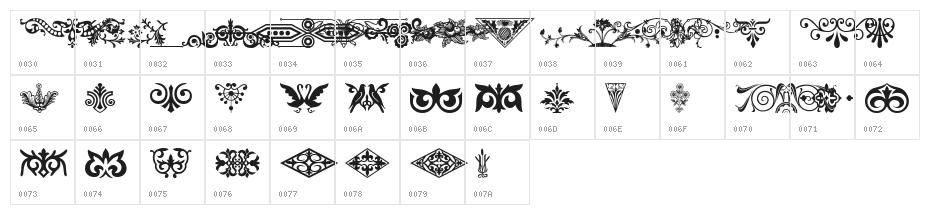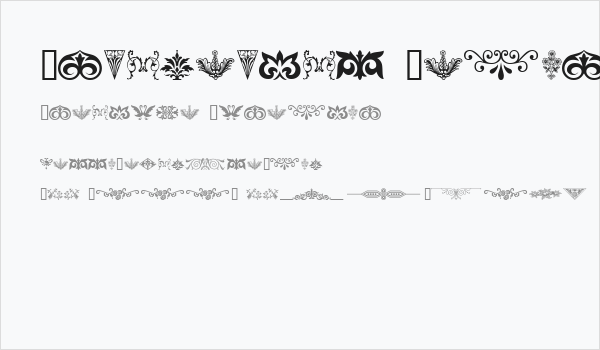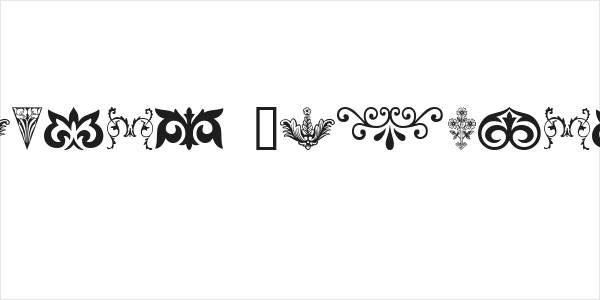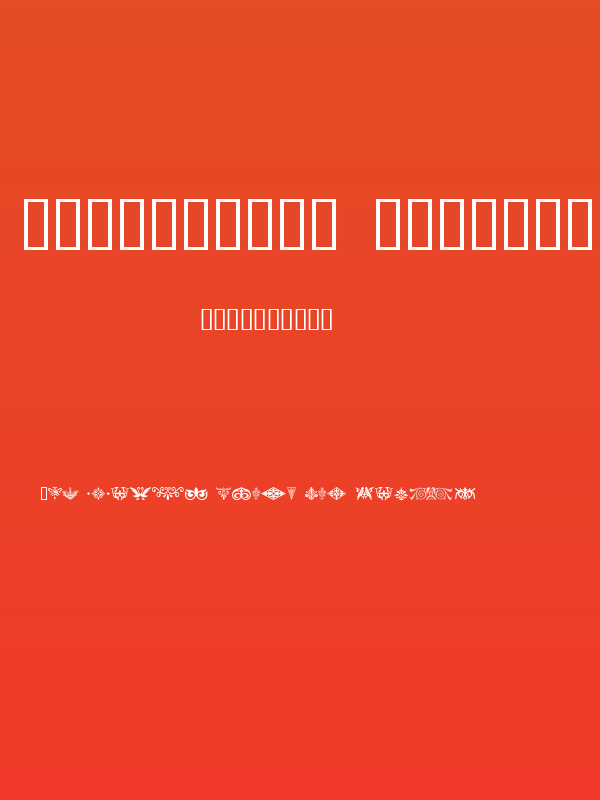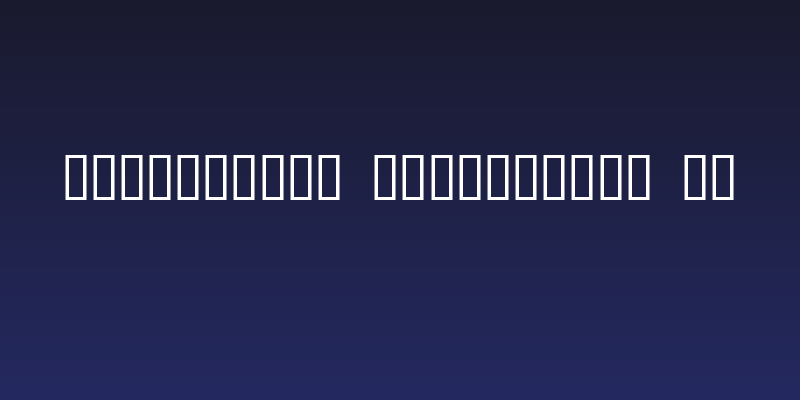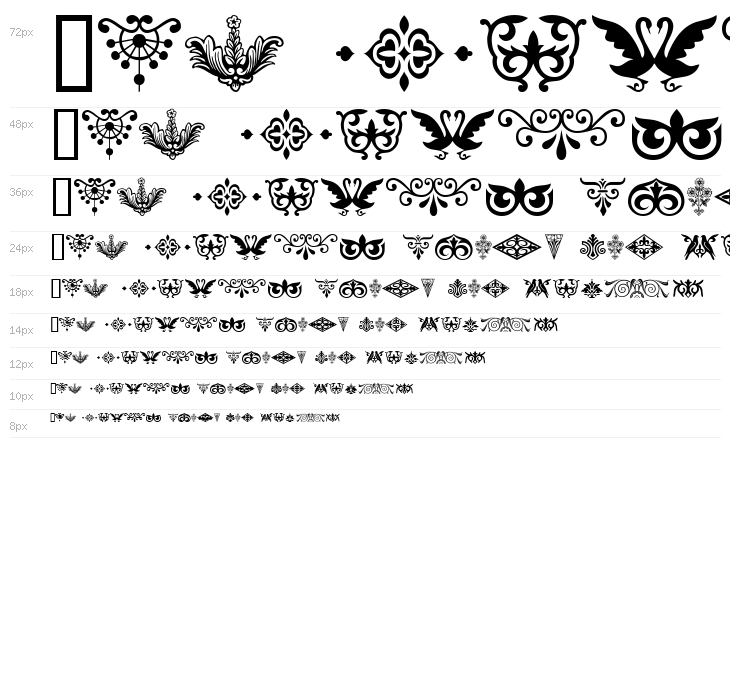
Ornamental Decoration II Font
Ornamental Decoration II Description
A decorative font composed of intricate ornamental motifs and flourishes, featuring a variety of symmetrical and elaborate designs reminiscent of vintage or classical embellishments. The glyphs are highly stylized and not intended for standard text, but rather for use as decorative elements or borders.
| Overall Style | Decorative, Vintage, Ornamental |
| Use Case | Decorative elements, Borders, Accents |
| Proposed Projects | Wedding invitations, certificates, decorative borders, vintage posters, book covers, graphic embellishments. |